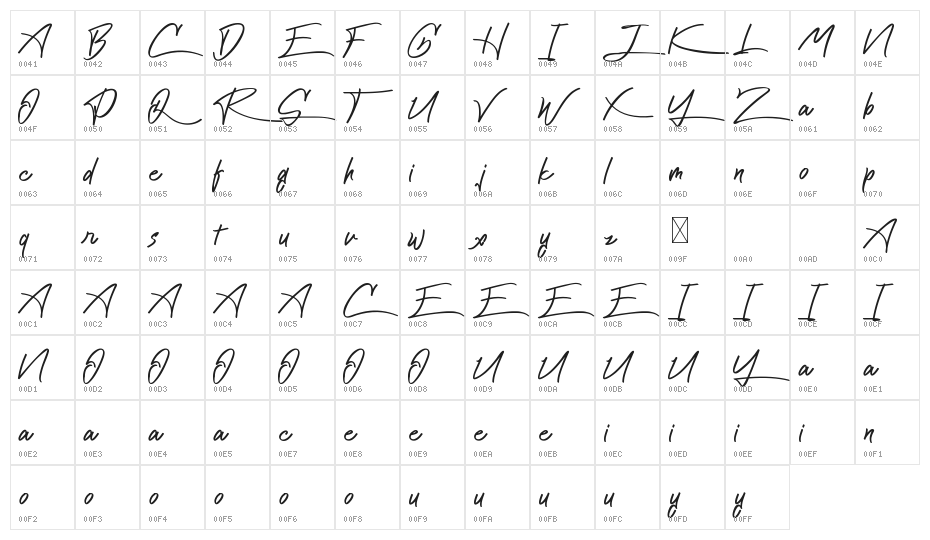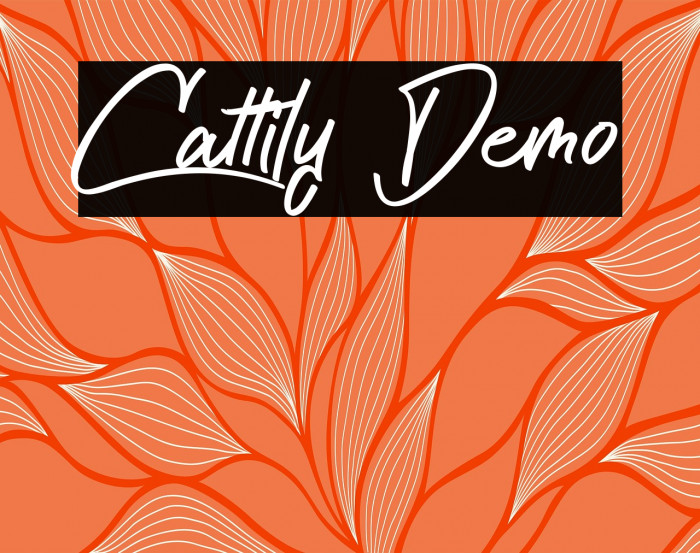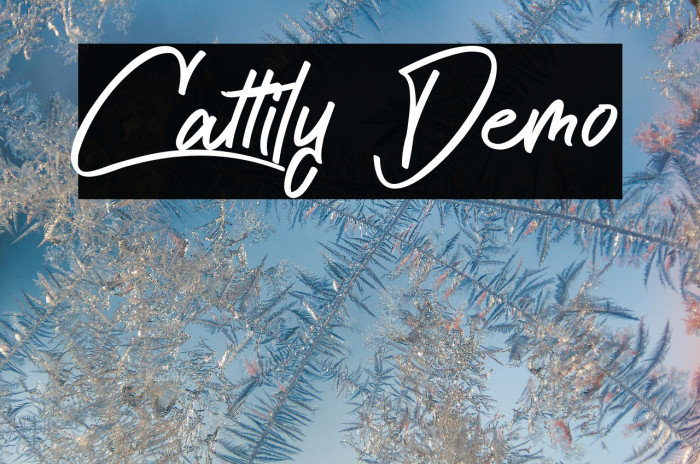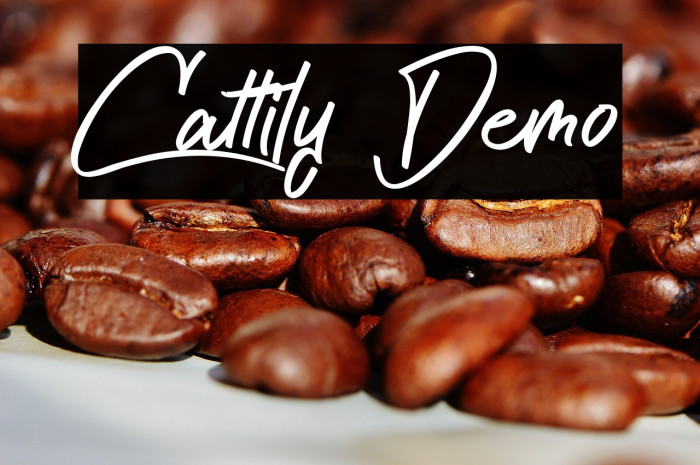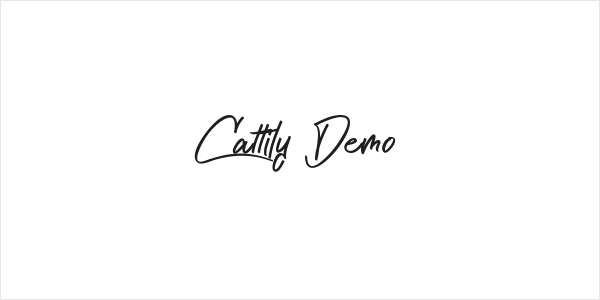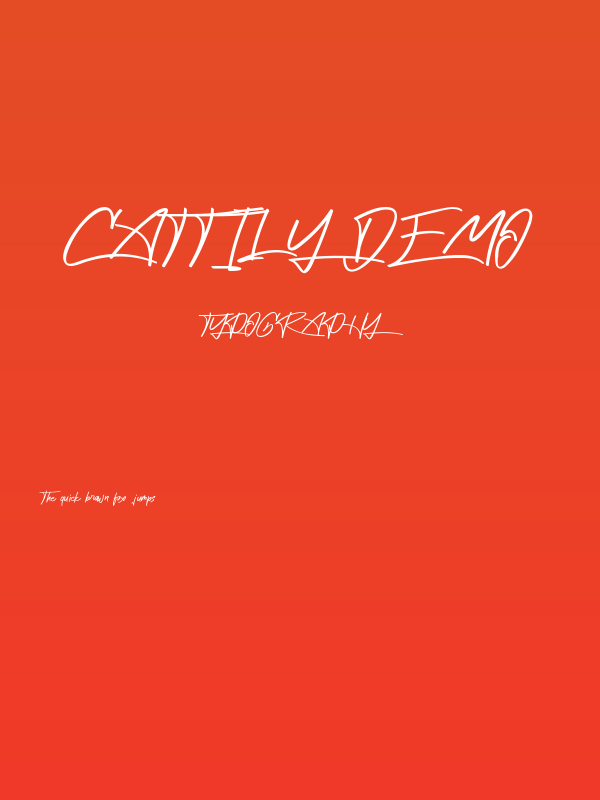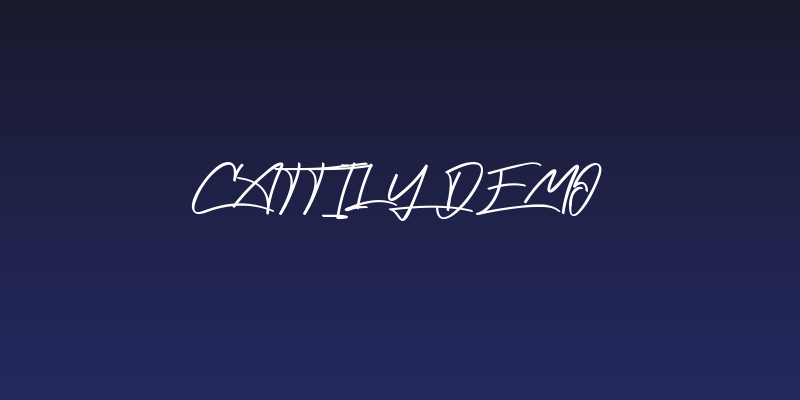
Cattily Demo Font
Cattily Demo Description
This font features a dynamic and expressive handwritten style, characterized by its fluid and cursive strokes. The letters are interconnected, giving a sense of continuous motion and energy. The uppercase letters are bold and prominent, while the lowercase letters maintain a consistent flow, enhancing readability despite the script's artistic flair. The font's unique personality is evident in its playful loops and swirls, making it ideal for creative and informal applications. Its distinctiveness is further highlighted by the varying thickness of the strokes, adding depth and character to each letter.